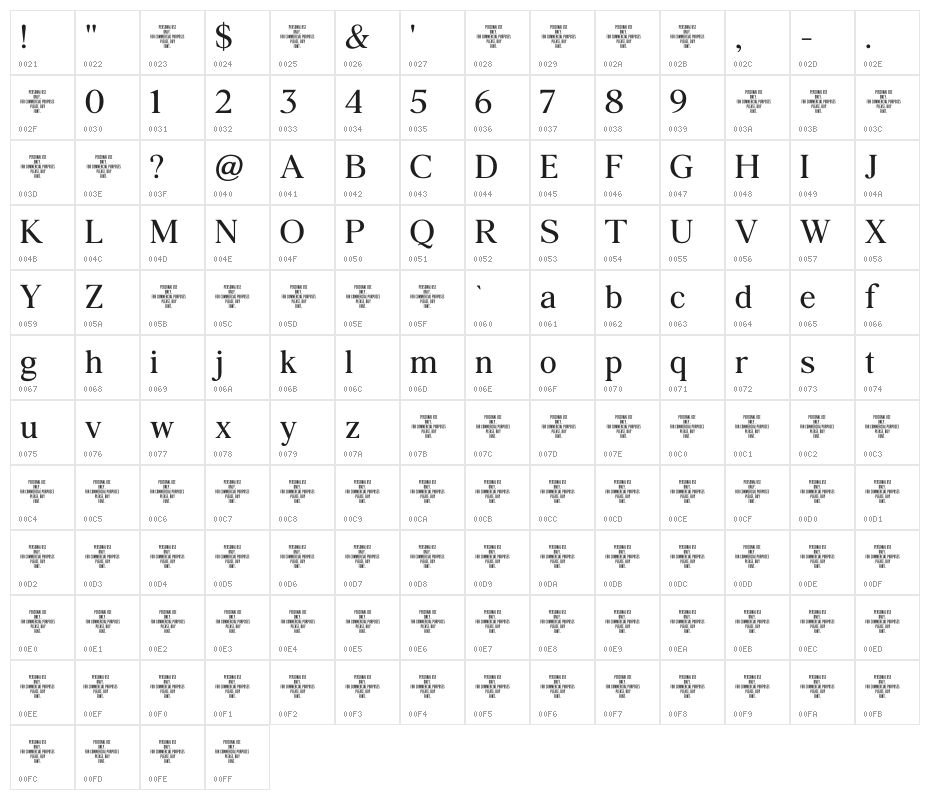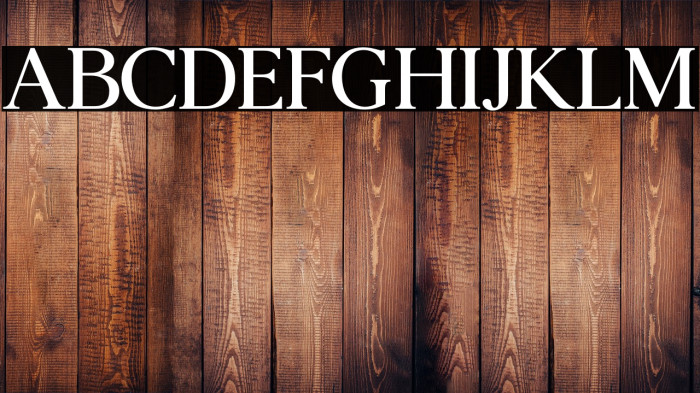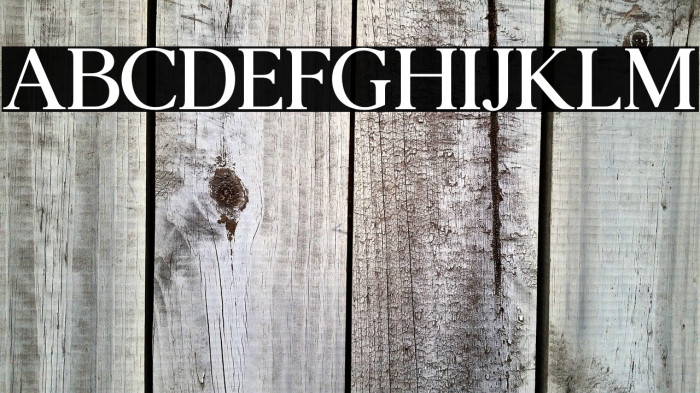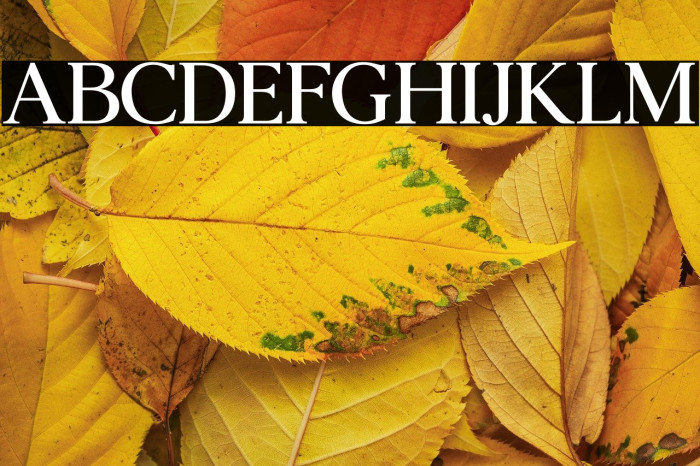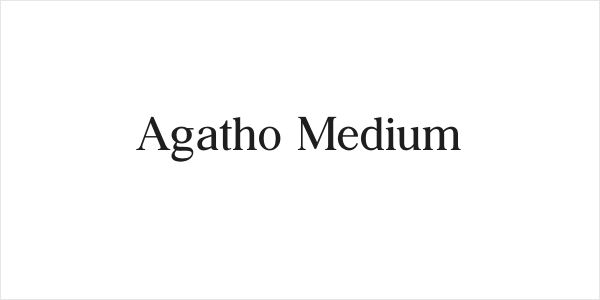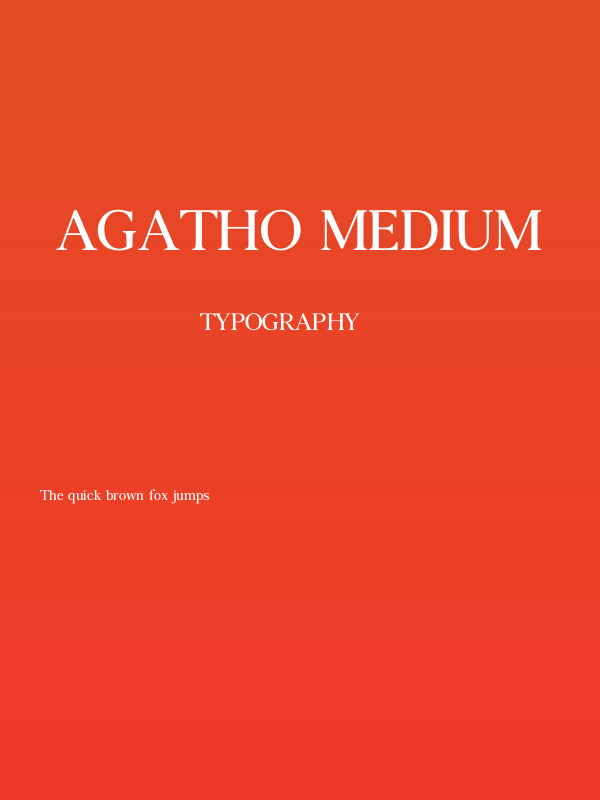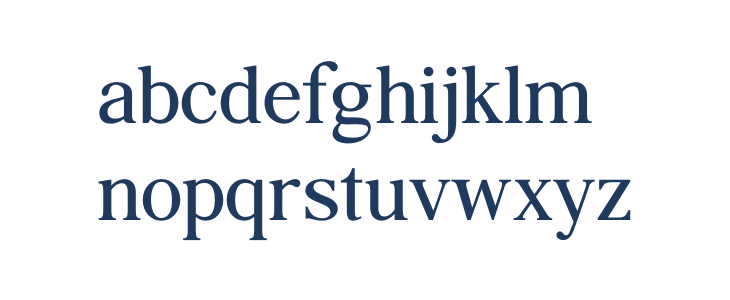
Agatho Medium Font
Agatho Medium Description
This font exhibits a classic serif style with elegant and refined strokes. The uppercase letters are bold and commanding, while the lowercase letters maintain a balanced and readable form. The numerals are clear and distinct, making them suitable for both display and text settings. The special characters are well-integrated, providing a cohesive look across all glyphs. The overall design is sophisticated, making it ideal for formal and professional applications.
| Proposed Projects | Ideal for book covers, editorial design, branding, and formal invitations. |